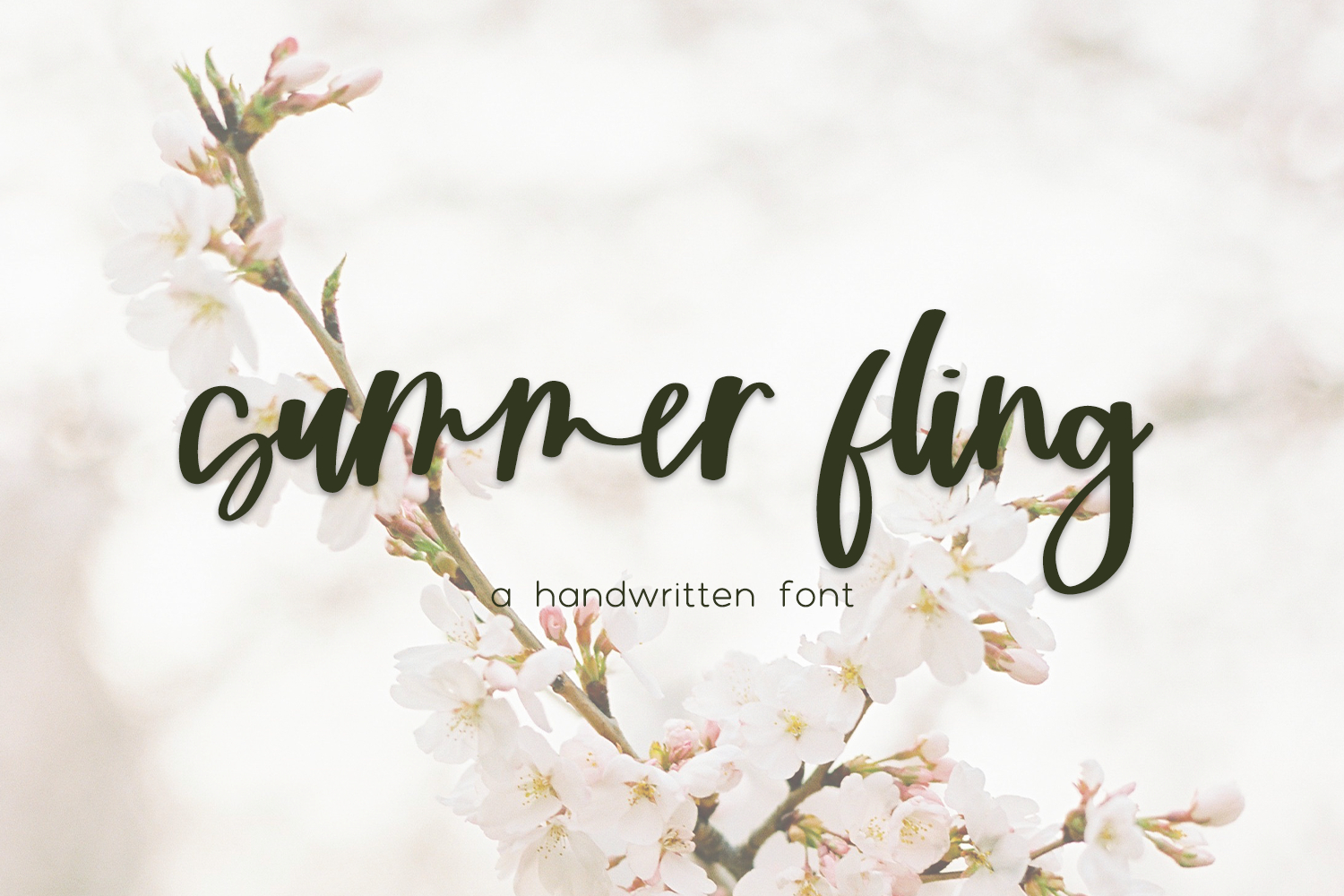
Introducing Summer Fling Script, a handwritten modern calligraphy font. This casual font features thicker strokes for a more bold look, and common double letter ligatures to mimic the handwritten aesthetic.
- 14 ligatures - bb, cc, dd, ee, ff, gg, ll, mm, nn, oo, pp, rr, ss, tt